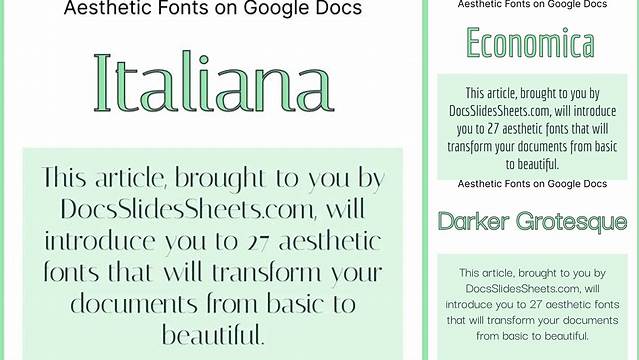
Aesthetic Fonts: Google Docs & Pinterest Inspiration
Hey guys! Ever feel like your Google Docs are just... blah? Or maybe your Pinterest boards need a little oomph? Well, let's talk aesthetic fonts! Finding the right font can totally transform your document or design, making it visually appealing and engaging. We're diving into the world of fonts you can use on Google Docs and draw inspiration from Pinterest to level up your creative game. Let’s explore how you can make your projects pop with the perfect font choices. Buckle up; it's about to get stylish!
Choosing Aesthetic Fonts for Google Docs
Aesthetic fonts are important for Google Docs because they help elevate your work beyond just basic text. Choosing the right font can transform a plain document into something visually appealing and engaging. Imagine turning a simple report into a captivating presentation just by switching up the font! The key is to find fonts that reflect the tone and purpose of your document. For example, a professional document might benefit from a clean, modern font, while a creative project could use something more whimsical and expressive. When selecting fonts, consider readability as well. While a font might look beautiful, it’s useless if your audience can’t easily read it. Think about the overall design and how the font fits into it. Experiment with different fonts to see what works best for your particular style and needs. Remember, the goal is to enhance your message, not distract from it. So, choose wisely, and let your font speak volumes!
Finding Inspiration on Pinterest for Fonts
Aesthetic fonts on Pinterest are a treasure trove for anyone seeking visual inspiration. Pinterest is a goldmine for discovering unique and trendy fonts that can elevate your design projects. When you search for fonts on Pinterest, you'll find countless examples of how different fonts are used in various contexts, from branding to social media graphics. This visual platform allows you to see fonts in action, making it easier to imagine how they might look in your own work. You can create mood boards to gather your favorite font combinations and styles, helping you develop a cohesive aesthetic. Pinterest also offers direct links to font sources, saving you time and effort in finding and downloading the fonts you love. Beyond just fonts, Pinterest offers insights into color palettes, typography pairings, and overall design trends that can complement your font choices. So, whether you’re designing a presentation, creating social media content, or working on a personal project, Pinterest can be your go-to source for font inspiration and design ideas. Dive in and let the visual journey guide you to the perfect fonts for your next project!
Top 10 Aesthetic Fonts for Google Docs
Selecting the right aesthetic fonts is pivotal in making your Google Docs stand out, and there's a treasure trove of options to explore. Here are ten amazing fonts that will transform your documents. First, there's Raleway, a classy, modern sans-serif that adds a hint of class. Secondly, Montserrat brings a neat and minimalist vibe to your text. Thirdly, think about Playfair Display for titles—a daring serif that stands out. Open Sans, fourth, is an excellent option for body text because it is clear and easy to read. Fifth, Lato combines beauty and readability in a subtle way that makes it suitable for a range of projects. Sixth, you may give your text a classy, vintage feel with Merriweather. Seventh, Slabo 27px is a solid, readable serif that works well for online reading. Eighth, Oswald is an adaptable option for headings and body text since it has a condensed sans-serif style. Ninth, Roboto is a contemporary, adaptable font that works well in many contexts. Last but not least, Dancing Script gives your work a fun, handwritten touch if you want to add a little personality. These aesthetic fonts can all be used to give your Google Docs a unique look and feel.
Combining Fonts for Maximum Aesthetic Appeal
Combining aesthetic fonts in Google Docs can elevate your document's visual appeal, but it's crucial to do it right! The key is to create a balance between contrast and harmony. Start by choosing a primary font for your body text—something readable and clean, like Open Sans or Lato. Then, select a secondary font for headings and titles that complements the primary font but stands out visually. For instance, pair Open Sans with Playfair Display for a classic and elegant look. Avoid using more than two or three fonts in a single document, as it can look cluttered and unprofessional. Consider the mood you want to create. A modern, minimalist document might use a sans-serif font for both body text and headings, while a more creative project could mix a serif font with a script font. Pay attention to font weights and sizes to create visual hierarchy. Use bolder weights for headings to make them pop. Finally, test your font combinations by printing a sample page or viewing it on different devices to ensure readability and visual consistency. By following these tips, you can create visually stunning documents with well-chosen and beautifully combined aesthetic fonts.
Utilizing Pinterest Boards for Font Inspiration
Utilizing Pinterest boards for aesthetic fonts inspiration is like having a personal design consultant at your fingertips. Pinterest is more than just a social media platform; it's a visual discovery engine where you can explore endless ideas for fonts and typography. Start by searching for terms like "font pairings," "typography design," or "aesthetic fonts." You'll find a plethora of boards dedicated to showcasing different font styles, combinations, and design layouts. When you come across a font you like, save it to your own board for future reference. Create separate boards for different themes or project types to keep your inspiration organized. Don't just save individual fonts; pay attention to how they're used in the overall design. Notice the color palettes, background textures, and other visual elements that complement the fonts. Follow Pinterest users who specialize in typography and graphic design to stay updated on the latest trends. Engage with the community by commenting on pins and asking questions. You can also use Pinterest's visual search tool to find similar fonts based on an image you upload. By actively using Pinterest boards, you can build a comprehensive library of font inspiration and elevate your design projects with stunning aesthetic fonts.
Free vs. Premium Aesthetic Fonts: Which to Choose?
When diving into the world of aesthetic fonts, you'll quickly encounter the choice between free and premium options. Free fonts are readily available and can be a great starting point, especially if you're on a budget. Websites like Google Fonts, Font Squirrel, and DaFont offer a wide selection of free fonts that are suitable for various projects. However, free fonts often come with limitations. They may have fewer styles, limited character sets, or less refined designs compared to premium fonts. Premium fonts, on the other hand, typically offer higher quality, more extensive features, and better support. They are designed by professional typographers and undergo rigorous testing to ensure optimal performance. Premium fonts often include multiple weights, italics, and ligatures, giving you more flexibility in your designs. They also come with commercial licenses, allowing you to use them in a wider range of projects without worrying about copyright issues. While premium fonts require an investment, they can significantly enhance the overall quality and professionalism of your work. Consider your project's needs and budget when making your decision. If you need a high-quality font for a commercial project, investing in a premium font is usually worth it. However, if you're working on a personal project or just starting out, free fonts can be a great way to explore different styles and experiment with typography. Ultimately, the best choice depends on your specific requirements and resources. Weigh the pros and cons of each option to make an informed decision and choose the aesthetic fonts that best suit your needs.
Pairing Fonts for Professional Documents
When it comes to professional documents, selecting the right aesthetic fonts and pairing them effectively is crucial for conveying professionalism and clarity. The goal is to choose fonts that are easy to read and create a visually appealing layout without being distracting. A classic approach is to pair a serif font for headings with a sans-serif font for body text, or vice versa. For example, you could use Times New Roman or Georgia for headings and Arial or Helvetica for body text. These combinations are timeless and convey a sense of authority and reliability. Another option is to use fonts from the same font family but with different weights and styles. For instance, you could use Roboto Bold for headings and Roboto Regular for body text. This creates a cohesive look while still providing visual hierarchy. Avoid using overly decorative or script fonts in professional documents, as they can be difficult to read and may not be appropriate for all audiences. Stick to clean, simple fonts that are designed for readability. Pay attention to font sizes and line spacing to ensure that your text is easy on the eyes. Use a consistent font pairing throughout your document to maintain a professional and polished appearance. By following these guidelines, you can create professional documents that are both visually appealing and easy to read with carefully chosen aesthetic fonts.
Fonts That Embody Minimalism
Minimalism in design emphasizes simplicity and clean lines, and the choice of aesthetic fonts plays a crucial role in achieving this aesthetic. Fonts that embody minimalism are typically sans-serif, with a focus on readability and understated elegance. Some popular minimalist fonts include Helvetica, Arial, Open Sans, and Lato. These fonts are characterized by their clean, geometric shapes and lack of decorative elements. They are versatile and can be used in a variety of contexts, from websites and logos to print materials and presentations. When choosing minimalist fonts, consider the overall tone and message you want to convey. A slightly bolder font can convey confidence and strength, while a lighter font can create a sense of airiness and sophistication. Pay attention to the spacing between letters and lines to ensure optimal readability. Avoid using overly condensed or expanded fonts, as they can look cluttered and detract from the minimalist aesthetic. Pair your minimalist font with plenty of white space to create a clean and uncluttered layout. Use a limited color palette to further enhance the minimalist look. By carefully selecting and using minimalist fonts, you can create designs that are both visually appealing and highly effective with impactful aesthetic fonts.
Retro and Vintage Font Styles
Retro and vintage font styles can add a touch of nostalgia and character to your designs, and selecting the right aesthetic fonts is key to capturing that era's essence. These fonts often feature unique characteristics like serifs, swashes, and decorative elements that evoke a sense of history and craftsmanship. Some popular retro and vintage fonts include Bebas Neue, Playfair Display, Lobster, and Raleway. Bebas Neue is a tall, condensed sans-serif that's reminiscent of mid-century advertising. Playfair Display is a classic serif font with elegant lines and a sophisticated feel. Lobster is a script font with flowing curves and a playful vibe. Raleway is a versatile sans-serif that can be used for both headings and body text. When using retro and vintage fonts, consider the specific era you want to evoke. Fonts from the 1920s and 1930s often feature Art Deco-inspired designs, while fonts from the 1950s and 1960s may have a more mid-century modern aesthetic. Pair your retro font with complementary colors and graphics to create a cohesive and authentic look. Use these fonts sparingly to avoid overwhelming the design. They work best when used for headings, logos, or short phrases. By carefully selecting and using retro and vintage fonts, you can add a touch of history and charm to your designs with distinctive aesthetic fonts.
Modern Sans-Serif Fonts
Modern sans-serif aesthetic fonts are characterized by their clean lines, geometric shapes, and minimalist design. They are widely used in contemporary design projects, ranging from websites and logos to print materials and presentations. These fonts convey a sense of simplicity, clarity, and modernity. Some popular modern sans-serif fonts include Helvetica, Arial, Open Sans, and Lato. Helvetica is a classic sans-serif font that has been used extensively in corporate branding and advertising. Arial is a widely available sans-serif font that is known for its readability and versatility. Open Sans is a humanist sans-serif font that is designed for optimal readability on screens. Lato is a stylish sans-serif font that combines beauty and readability. When choosing modern sans-serif fonts, consider the overall tone and message you want to convey. A slightly bolder font can convey confidence and strength, while a lighter font can create a sense of airiness and sophistication. Pay attention to the spacing between letters and lines to ensure optimal readability. Avoid using overly condensed or expanded fonts, as they can look cluttered and detract from the minimalist aesthetic. Pair your modern sans-serif font with plenty of white space to create a clean and uncluttered layout. Use a limited color palette to further enhance the modern look. By carefully selecting and using modern sans-serif fonts, you can create designs that are both visually appealing and highly effective while utilizing impactful aesthetic fonts.
Elegant Serif Fonts for a Sophisticated Look
Elegant serif aesthetic fonts are often used to convey a sense of sophistication, tradition, and authority. These fonts feature small decorative strokes at the end of each letter, known as serifs, which add a touch of refinement and elegance. Serif fonts are commonly used in books, magazines, and other print materials, as well as in logos and branding for luxury brands. Some popular elegant serif fonts include Times New Roman, Georgia, Baskerville, and Garamond. Times New Roman is a classic serif font that is widely used in academic and professional settings. Georgia is a more modern serif font that is designed for optimal readability on screens. Baskerville is a refined serif font that is known for its elegant curves and balanced proportions. Garamond is a classic serif font that is known for its timeless beauty and readability. When choosing elegant serif fonts, consider the overall tone and message you want to convey. A more traditional serif font can convey a sense of history and authority, while a more modern serif font can create a sense of sophistication and style. Pay attention to the spacing between letters and lines to ensure optimal readability. Avoid using overly decorative or ornate serif fonts, as they can be difficult to read and may detract from the overall design. Pair your elegant serif font with complementary colors and graphics to create a cohesive and sophisticated look. By carefully selecting and using elegant serif fonts, you can add a touch of class and sophistication to your designs using carefully selected aesthetic fonts.
Script and Handwritten Style Fonts
Script and handwritten style aesthetic fonts can add a personal and informal touch to your designs. These fonts mimic the look of handwriting, with flowing curves and unique letterforms. They are often used in invitations, greeting cards, and other designs where a personal touch is desired. However, they can also be used in logos and branding to create a more approachable and human feel. Some popular script and handwritten style fonts include Brush Script, Pacifico, Lobster, and Great Vibes. Brush Script is a classic script font that is known for its bold strokes and dynamic curves. Pacifico is a casual script font that is inspired by the surf culture of the 1950s. Lobster is a bold script font with a retro feel. Great Vibes is an elegant script font that is perfect for wedding invitations and other formal occasions. When using script and handwritten style fonts, be sure to use them sparingly. They can be difficult to read in large blocks of text, so it's best to use them for headings, logos, or short phrases. Pair your script or handwritten font with a clean and simple sans-serif font to create a balanced and readable design. Consider the overall tone and message you want to convey when choosing a script or handwritten font. A more formal script font can convey elegance and sophistication, while a more casual script font can create a sense of fun and playfulness. By carefully selecting and using script and handwritten style fonts, you can add a personal and unique touch to your designs using compelling aesthetic fonts.
Display Fonts for Eye-Catching Headings
Display aesthetic fonts are designed to grab attention and make a statement, making them perfect for headings, titles, and other prominent design elements. These fonts often feature unique and decorative letterforms that set them apart from more traditional text fonts. Display fonts can be used to convey a wide range of emotions and styles, from playful and whimsical to bold and sophisticated. Some popular display fonts include Impact, Bebas Neue, Oswald, and Playfair Display. Impact is a bold and condensed sans-serif font that is often used for headlines and posters. Bebas Neue is a tall and narrow sans-serif font that is popular for its modern and minimalist aesthetic. Oswald is a versatile sans-serif font that is well-suited for both headings and body text. Playfair Display is an elegant serif font that is perfect for adding a touch of sophistication to your designs. When choosing display fonts, consider the overall tone and message you want to convey. A bold and geometric font can convey strength and confidence, while a more ornate and decorative font can create a sense of elegance and luxury. Be sure to use display fonts sparingly, as they can be overwhelming if used too frequently. Pair your display font with a clean and simple text font to create a balanced and readable design. Pay attention to the spacing between letters and lines to ensure that your display font is easy to read and visually appealing. By carefully selecting and using display fonts, you can create eye-catching headings and titles that draw the reader's attention and make a lasting impression when strategically employing aesthetic fonts.
Monospace Fonts for Coding and Technical Documents
Monospace aesthetic fonts are characterized by their fixed-width letters, meaning that each character takes up the same amount of horizontal space. This makes them ideal for coding, technical documents, and other applications where precise alignment is important. Monospace fonts are also often used to create a retro or typewriter-like aesthetic. Some popular monospace fonts include Courier New, Consolas, Monaco, and Source Code Pro. Courier New is a classic monospace font that is commonly used in coding environments. Consolas is a modern monospace font that is designed for optimal readability on screens. Monaco is a clean and elegant monospace font that is popular among developers. Source Code Pro is a highly legible monospace font that is specifically designed for coding. When choosing monospace fonts, readability is key. Look for fonts that have clear and distinct letterforms, even at small sizes. Pay attention to the spacing between letters and lines to ensure that your text is easy to read. Avoid using overly decorative or stylized monospace fonts, as they can be difficult to read and may detract from the overall design. Pair your monospace font with a complementary sans-serif font for body text to create a balanced and professional look. Consider the overall tone and message you want to convey when choosing a monospace font. A more traditional monospace font can convey a sense of formality and precision, while a more modern monospace font can create a sense of innovation and technology. By carefully selecting and using monospace fonts, you can create clean, readable, and professional-looking documents for coding and technical applications while thoughtfully considering aesthetic fonts.
Google Fonts: A Comprehensive Resource
Google Fonts is a comprehensive resource for finding high-quality, open-source aesthetic fonts for your design projects. With hundreds of fonts to choose from, Google Fonts offers a wide variety of styles to suit any need, from classic serif fonts to modern sans-serif fonts and everything in between. All Google Fonts are free to use, even for commercial projects, making them an excellent choice for designers on a budget. Google Fonts are also easy to implement on websites and in Google Docs, making them a convenient option for web designers and content creators. To use Google Fonts on your website, simply add a link to the Google Fonts stylesheet in your HTML code. You can then use the font in your CSS styles by specifying the font family name. To use Google Fonts in Google Docs, simply select the font from the font menu. Google Fonts are constantly being updated with new fonts and features, so it's always worth checking back to see what's new. You can also browse Google Fonts by category, popularity, or trending status to discover new and interesting fonts. When choosing Google Fonts, be sure to consider the overall tone and message you want to convey. A more formal font can convey a sense of professionalism and authority, while a more casual font can create a sense of fun and playfulness. Pay attention to the spacing between letters and lines to ensure that your text is easy to read and visually appealing. By carefully selecting and using Google Fonts, you can create beautiful and effective designs that communicate your message clearly and effectively. This resource is crucial for leveraging aesthetic fonts.
Font Licensing: Understanding the Basics
Understanding font licensing is crucial to ensure that you are using aesthetic fonts legally and ethically. Font licenses define the terms and conditions under which you are allowed to use a particular font. These licenses can vary widely, depending on the font vendor and the specific font. Some fonts are free to use for both personal and commercial projects, while others require a license fee for commercial use. It's important to read the font license carefully before using a font in any project to ensure that you are complying with the terms. Common font license restrictions include limitations on embedding the font in documents or software, using the font for logos or branding, or modifying the font in any way. Some font licenses also restrict the number of users who can use the font. If you are unsure about the terms of a font license, it's best to contact the font vendor directly for clarification. Using a font without the proper license can result in legal consequences, including fines and lawsuits. There are several types of font licenses, including desktop licenses, webfont licenses, app licenses, and embedding licenses. A desktop license allows you to install the font on your computer and use it in desktop applications like Microsoft Word and Adobe Photoshop. A webfont license allows you to use the font on your website. An app license allows you to embed the font in a mobile app. An embedding license allows you to embed the font in a document or software. By understanding the basics of font licensing, you can protect yourself from legal issues and ensure that you are using aesthetic fonts responsibly.
Font Pairing Tools and Resources
Font pairing is an art, and finding the perfect combinations of aesthetic fonts can be challenging. Luckily, several font pairing tools and resources can help you create harmonious and visually appealing designs. These tools typically provide suggestions for fonts that complement each other based on factors such as style, weight, and purpose. One popular font pairing tool is FontPair, which offers a curated selection of Google Font pairings. You can browse pairings by category, such as serif and sans-serif, or filter by specific styles, such as modern or classic. Another helpful resource is Canva's Font Combinations tool, which allows you to experiment with different font pairings and see how they look in a variety of design templates. Adobe Fonts also offers a font pairing feature that suggests complementary fonts based on the font you have selected. In addition to these tools, there are also many articles and blog posts that offer font pairing tips and inspiration. These resources often provide examples of successful font pairings and explain the principles behind them. When using font pairing tools, it's important to remember that the best font pairings are those that reflect your personal style and the overall message of your design. Don't be afraid to experiment with different combinations and trust your instincts. By using font pairing tools and resources, you can create visually stunning designs that effectively communicate your message with complementary aesthetic fonts.
Creating a Font Mood Board
Creating a font mood board is a fantastic way to gather inspiration and visualize your aesthetic fonts choices for a project. A mood board is a visual collage that helps you explore different font styles, color palettes, and design elements that align with your project's goals. Start by collecting fonts that resonate with the overall aesthetic you're aiming for. You can find fonts on websites like Google Fonts, Adobe Fonts, and Font Squirrel, or browse through Pinterest and other design inspiration platforms. Save images of these fonts in use, paying attention to how they are paired with other design elements. Next, create a digital or physical mood board using tools like Pinterest, Milanote, or even a simple document editor. Arrange the font images on the mood board, grouping them by style or purpose. Add color swatches that complement the fonts and reflect the desired mood. Include images of textures, patterns, and other visual elements that inspire you. As you create your mood board, look for patterns and connections between the different elements. This will help you refine your font choices and develop a cohesive design vision. Use your font mood board as a reference throughout your design process. Refer back to it whenever you need inspiration or guidance. By creating a font mood board, you can ensure that your font choices are aligned with your project's overall aesthetic and create a visually stunning and effective design by selecting the perfect aesthetic fonts.
Font Size and Readability Best Practices
Optimizing font size and readability is crucial for ensuring that your content is easy to read and engaging. The right font size can make a significant difference in how your audience perceives your message. For body text, aim for a font size between 14 and 16 points for online content and 11 and 12 points for print materials. Headings should be larger, typically ranging from 18 to 36 points, depending on the level of hierarchy. Choose aesthetic fonts that are designed for readability, with clear and distinct letterforms. Avoid using overly decorative or stylized fonts for body text, as they can be difficult to read. Pay attention to line height, which is the vertical space between lines of text. A general rule of thumb is to set the line height to 1.5 times the font size. This creates ample space between lines, making the text easier to scan. Also, consider letter spacing, which is the horizontal space between letters. Adjusting letter spacing can improve readability, especially for condensed fonts. Use proper contrast between the text and background colors. Light text on a dark background or dark text on a light background provides the best readability. Avoid using colors that are too similar, as they can strain the eyes. Test your font choices on different devices and screen sizes to ensure that they are readable across various platforms. By following these best practices, you can optimize font size and readability and create content that is both visually appealing and easy to understand. The proper use of aesthetic fonts can greatly improve user experience.
Kerning and Tracking: Fine-Tuning Your Typography
Kerning and tracking are essential typographic techniques for fine-tuning the appearance and readability of your aesthetic fonts. Kerning refers to the adjustment of space between individual letter pairs to create a more visually balanced and harmonious look. Some letter combinations, such as "AV" or "WA," may appear too far apart, while others may appear too close together. Kerning allows you to manually adjust the space between these letters to achieve a more even and consistent appearance. Tracking, on the other hand, refers to the uniform adjustment of space between all letters in a word or block of text. Tracking is often used to adjust the overall density of text, making it more or less compact. In general, you want to use kerning and tracking sparingly, as overdoing it can make your text look unnatural. However, subtle adjustments can make a significant difference in the overall appearance and readability of your typography. When kerning, pay close attention to letter combinations that have diagonal or curved shapes, as these often require more adjustment. When tracking, consider the overall density of the text and the font size. Smaller font sizes may require slightly looser tracking, while larger font sizes may benefit from tighter tracking. Use your best judgment and trust your eye to make the necessary adjustments. By mastering kerning and tracking, you can elevate your typography and create more visually appealing and professional-looking designs through careful selection of aesthetic fonts.
The Psychology of Fonts: How Fonts Influence Perception
Aesthetic fonts have a powerful influence on perception, shaping how people interpret and respond to your message. Different fonts evoke different emotions and associations, so it's crucial to choose fonts that align with your brand identity and the overall tone of your content. Serif fonts, with their traditional and elegant appearance, often convey a sense of authority, reliability, and sophistication. They are commonly used in formal documents, books, and corporate branding. Sans-serif fonts, with their clean and modern lines, tend to evoke feelings of simplicity, clarity, and innovation. They are popular in websites, logos, and contemporary designs. Script fonts, which mimic handwriting, can create a personal and informal touch. They are often used in invitations, greeting cards, and designs that aim to convey warmth and authenticity. Display fonts, with their unique and decorative letterforms, are designed to grab attention and make a statement. They can be used to convey a wide range of emotions, from playfulness to boldness to sophistication. When choosing fonts, consider your target audience and the message you want to convey. A font that resonates with one audience may not be effective with another. Test different fonts and gather feedback to see how people respond. Pay attention to the overall visual impact of your font choices and how they contribute to the overall message of your design. By understanding the psychology of fonts, you can make informed decisions that enhance your brand identity and create more effective and engaging communications. These carefully selected aesthetic fonts shape the perception of your message.
Accessibility Considerations for Font Choices
Accessibility is a critical consideration when choosing aesthetic fonts, ensuring that your content is readable and usable by people with disabilities. Some fonts are more accessible than others, and it's important to select fonts that are easy to read for individuals with visual impairments, dyslexia, or other reading difficulties. Choose fonts with clear and distinct letterforms, avoiding overly decorative or stylized fonts that can be difficult to decipher. Opt for fonts with a large x-height, which is the height of the lowercase letters, as this improves readability. Pay attention to letter spacing and line height, ensuring that there is ample space between letters and lines to prevent crowding. Use proper contrast between the text and background colors. Light text on a dark background or dark text on a light background provides the best readability. Avoid using colors that are too similar, as they can be difficult to distinguish. Provide alternative text descriptions for images that contain text, allowing screen readers to convey the information to users with visual impairments. Use semantic HTML tags to structure your content, making it easier for screen readers to navigate and interpret the information. Test your font choices with accessibility testing tools to identify any potential issues. By following these accessibility considerations, you can ensure that your content is inclusive and accessible to everyone, regardless of their abilities. Accessibility and the use of aesthetic fonts can greatly improve user experience.
Common Font Mistakes to Avoid
Avoiding common font mistakes is crucial for creating professional and visually appealing designs with aesthetic fonts. One common mistake is using too many fonts in a single design. Sticking to a maximum of two or three fonts creates a cohesive and balanced look. Another mistake is choosing fonts that are difficult to read. Prioritize readability, especially for body text, and avoid overly decorative or stylized fonts that can strain the eyes. Ignoring font licensing is another common mistake. Always ensure that you have the proper license to use a font, especially for commercial projects. Using fonts that are not web-safe can also cause problems. Web-safe fonts are those that are commonly installed on most computers, ensuring that your design will display correctly across different devices. Failing to optimize font size and line height can also negatively impact readability. Use appropriate font sizes for headings and body text, and adjust line height to create ample space between lines. Overusing bold or italic styles can also make your text look cluttered and overwhelming. Use these styles sparingly to emphasize important words or phrases. Neglecting kerning and tracking can also detract from the overall appearance of your typography. Pay attention to the spacing between letters and adjust as needed to create a more visually balanced look. By avoiding these common font mistakes, you can create designs that are both visually appealing and easy to read, enhancing the overall effectiveness of your message. The proper use of aesthetic fonts is vital to conveying your message.
Future Trends in Font Design
The future of font design is constantly evolving, driven by technological advancements and changing design trends. One emerging trend is the use of variable fonts, which allow for greater flexibility and customization. Variable fonts contain multiple variations within a single font file, allowing designers to adjust parameters such as weight, width, and slant. This provides greater control over typography and allows for more responsive and adaptable designs with dynamic aesthetic fonts. Another trend is the increasing use of geometric and minimalist fonts, which reflect the growing popularity of minimalist design aesthetics. These fonts are characterized by their clean lines, simple shapes, and understated elegance. The use of bold and expressive fonts is also on the rise, as designers seek to create designs that stand out and grab attention. These fonts often feature unique and decorative letterforms that make a statement. The integration of fonts with virtual reality (VR) and augmented reality (AR) technologies is also an emerging trend. As VR and AR become more mainstream, designers will need to create fonts that are optimized for these immersive environments. The use of AI and machine learning in font design is also on the horizon. AI can be used to generate new fonts automatically, based on user preferences or design constraints. By staying abreast of these future trends, designers can position themselves at the forefront of font design and create innovative and impactful designs with future aesthetic fonts.